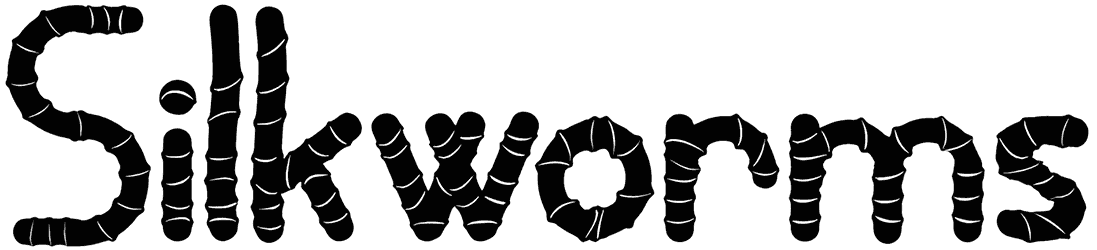
Bambu Font
Need a font to remind you of the strength and flexibility? So you may like to use Bambu font and inspire your clients. This leaf font is suitable for logos, business cards, flyers, etc. Try it out now and see how fantastic it appears. For more of this category, head over to Resource Boy.
Designed by: Xerographer Fonts